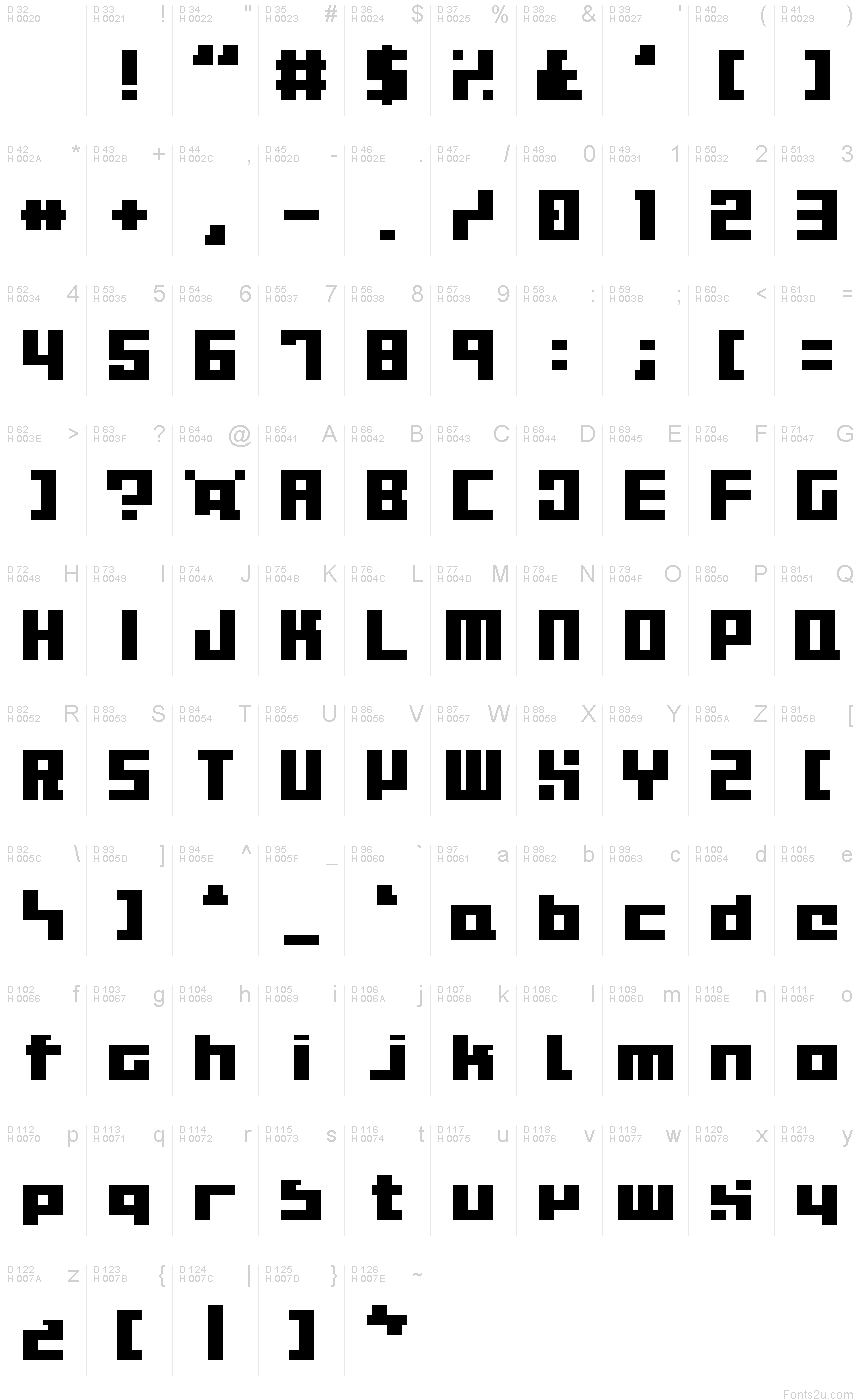
BitmapperOLDTYPE
Bitmapper Oldtype font by Cosmic Cosmos stacks bold square pixels into compact, stencil‑like letters with tiny punched‑out counters. This free font feels ripped from old console menus and 8‑bit title screens, giving text a tight, mechanical rhythm that still reads clearly at a glance.
Use Bitmapper Oldtype for game logos, HUD labels, stream overlays, techno flyers, stickers, badges, or any project chasing pure arcade energy. This free font works best at bigger sizes with tight tracking, and pairs neatly with a plain geometric sans for supporting text.